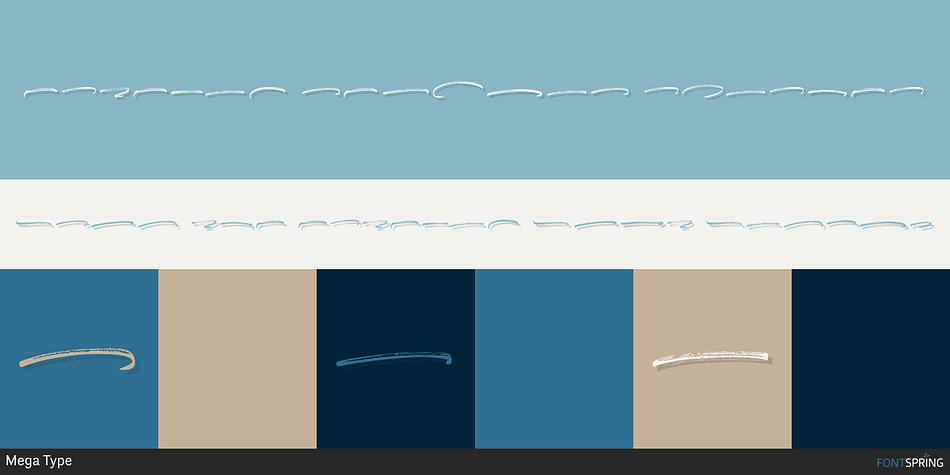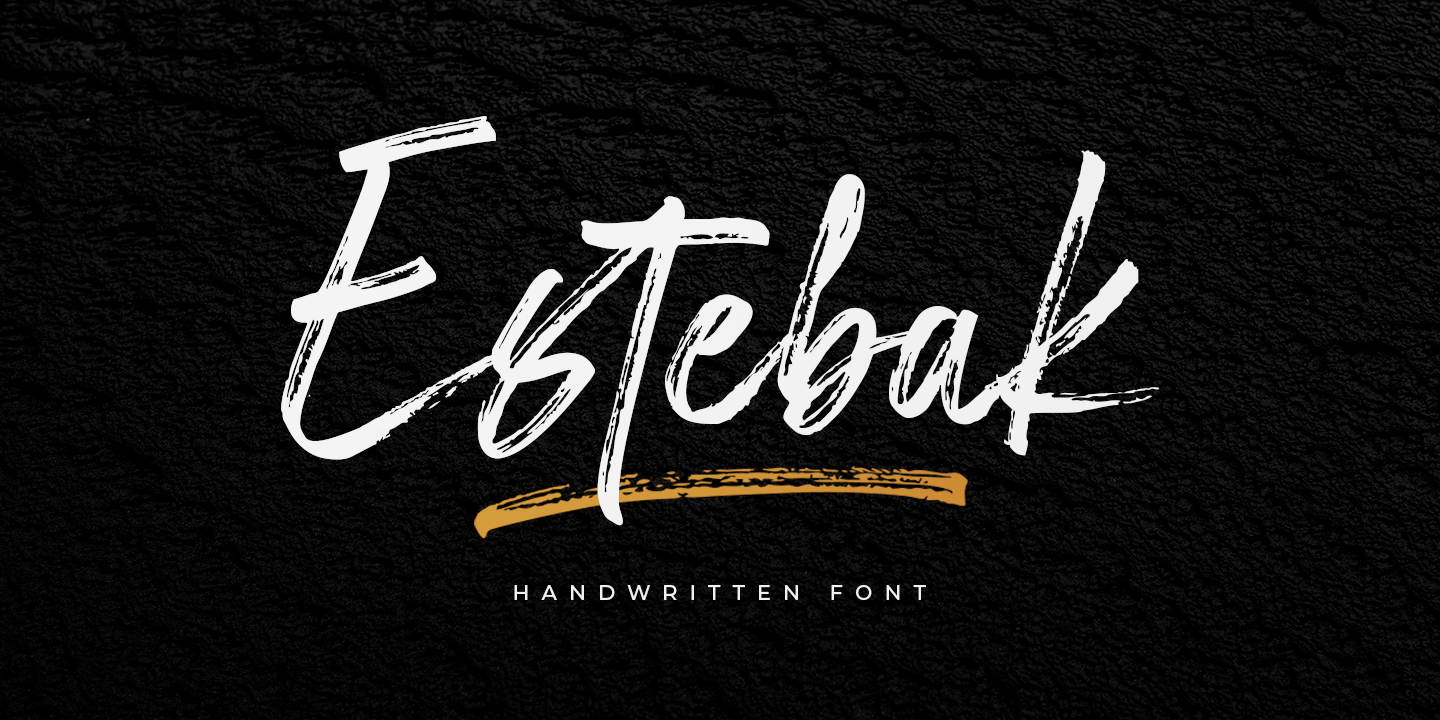
Estebak Regular Swashes
Estebak is a brush script, grunge and dingbat font family. This typeface has two styles and was published by Mega Type.
Estebak is textured brush font, contemporary approach to design, handmade natural with an irregular baseline. Suitable for use in title design. Such as apparel, invitations, books tittle, stationery design, quotes, branding, logos, greeting card, t-shirt, packaging design, poster and more. Estebak includes a complete set of uppercase and lowercase letters, as well as multi-language support, numbers, punctuation, ligatures.